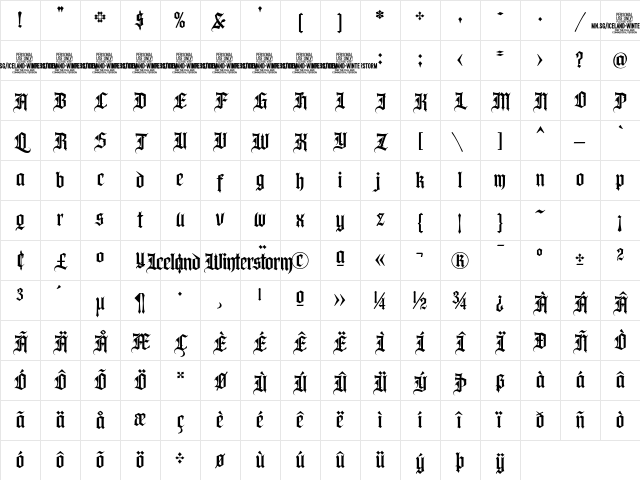
Iceland Winterstorm PERSONAL Regular
Foundry: Mans Greback AB
Designer: Mans Greback
Design Context for Iceland Winterstorm PERSONAL
Iceland Winterstorm PERSONAL is a composed and adaptable typeface that performs quietly and consistently across a wide range of design contexts.